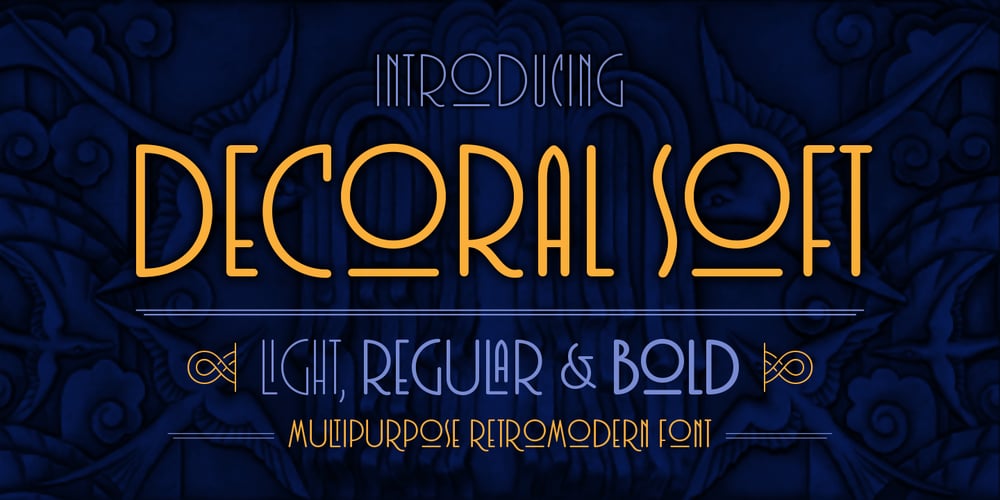
Decoral Soft Font Family was designed by Lasko Dzurovski and published by Totem. Decoral Soft contains 3 styles and family package options. Decoral Soft depicts the character of Art Deco period typography and reinterprets it into modern approaches. This typeface is a friendly and flexible family that is fun to use. It comes with a set of 670 characters per weight, supporting over 50 different languages using the Latin alphabet. Decoral Soft also comes with special stylistic sets and swash characters that allow the user to be creative and playful with the type, helps enhance many different possibilities that certainly will spice up your design. Decoral Soft will satisfy all your typographic needs, from book jackets to monograms to packaging, logos, and even wedding invitations—timelessly elegant, with a distinctive flair that exudes Art Deco typography in a fresh, modern way. The wide selection of titling alternates and ligatures make copyfitting a delight.